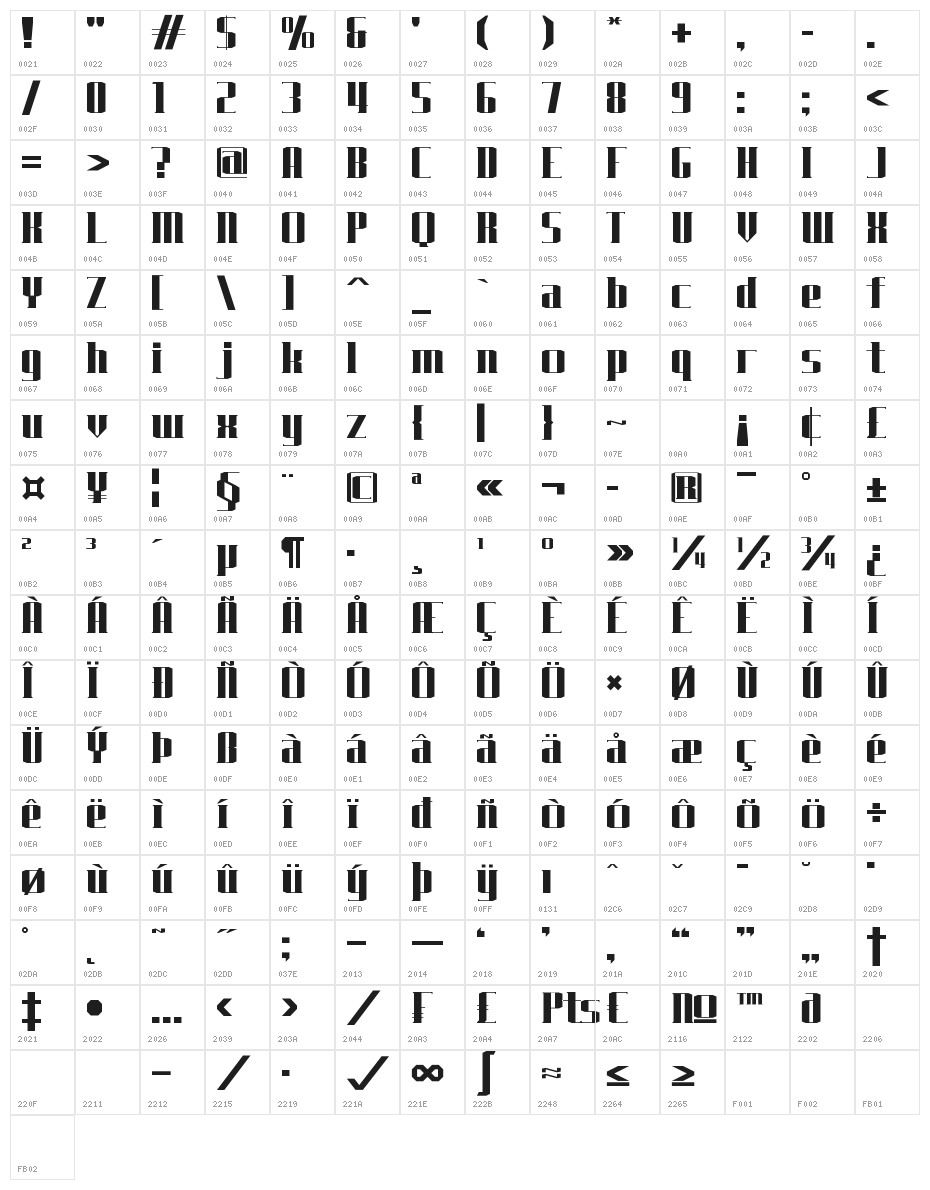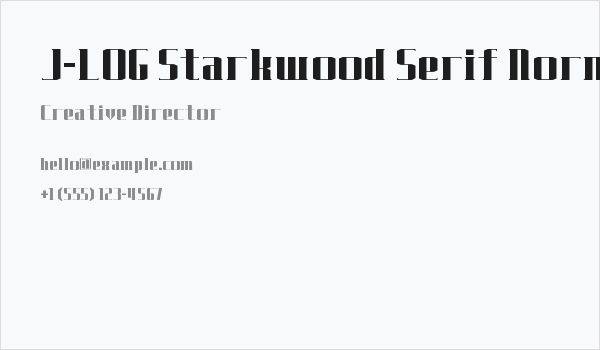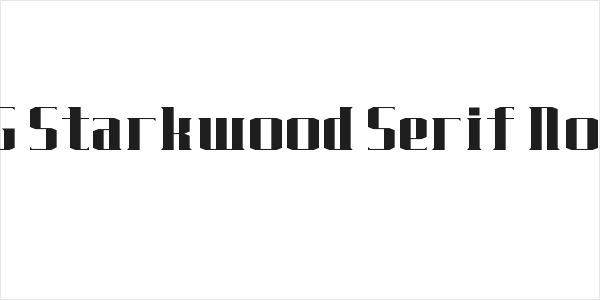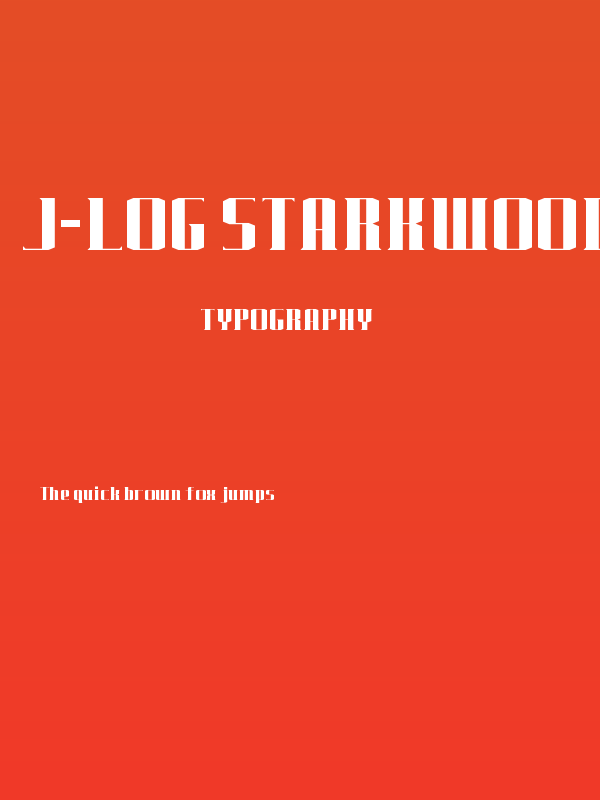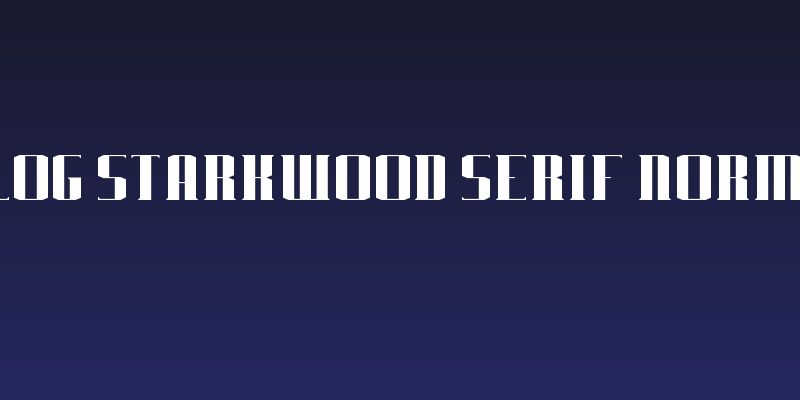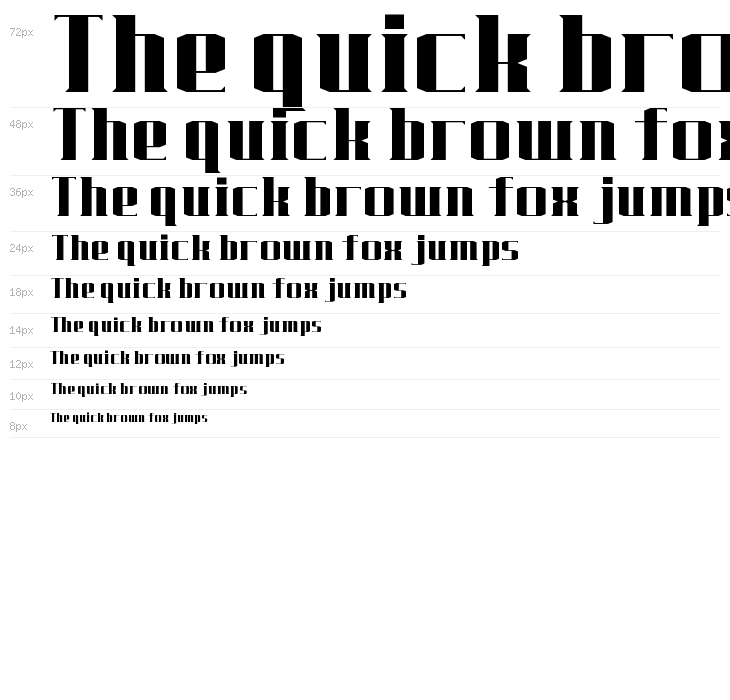
J-LOG Starkwood Serif Normal Font
J-LOG Starkwood Serif Normal Description
| Proposed Projects | Ideal for branding, poster design, and editorial headlines where a strong visual impact is needed. |